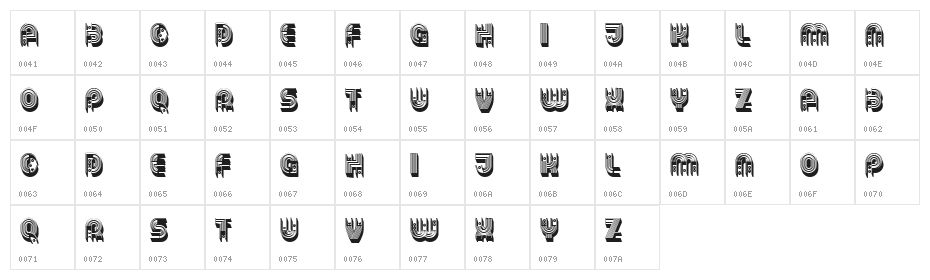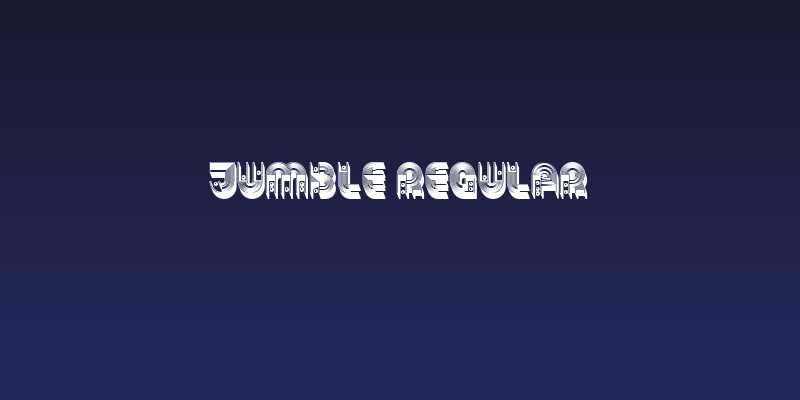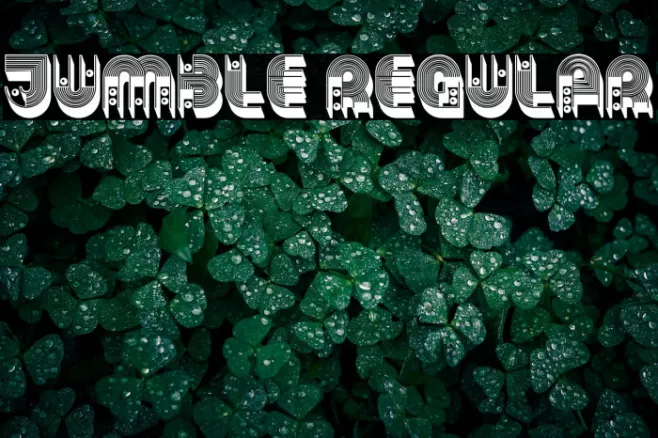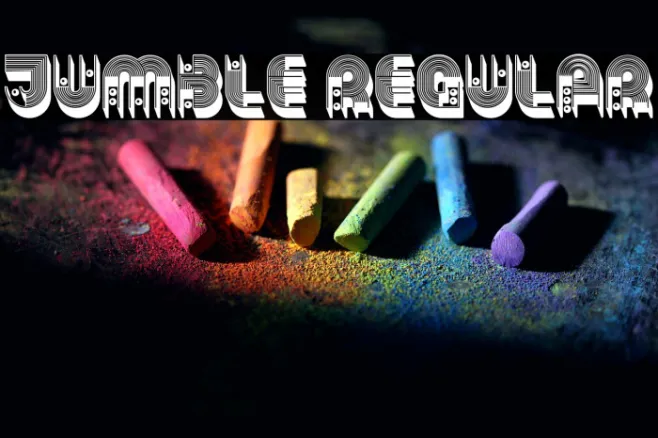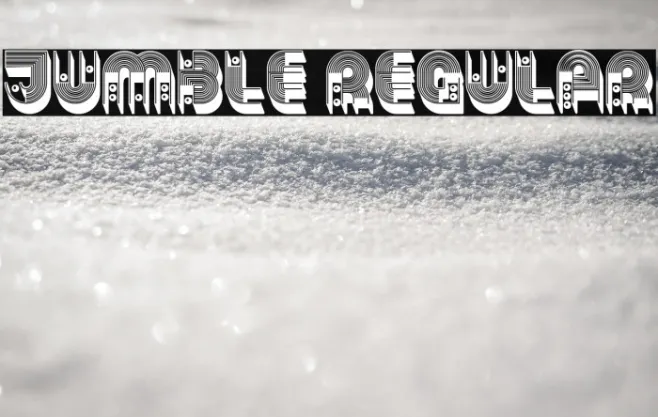
Jumble Regular Font
Jumble Regular Description
This font features a bold, decorative style with a unique combination of geometric shapes and intricate patterns. Each character is designed with a three-dimensional effect, incorporating lines and dots that create a sense of depth and movement. The uppercase letters are particularly striking, with a strong presence that commands attention. The lowercase letters maintain the same decorative elements, ensuring consistency throughout the typeface. The numbers and special characters are equally detailed, making this font versatile for various creative applications. Its playful yet structured design makes it suitable for projects that require a bold and artistic touch.
| Proposed Projects | Ideal for posters, album covers, branding, and any project needing a bold, artistic flair. |